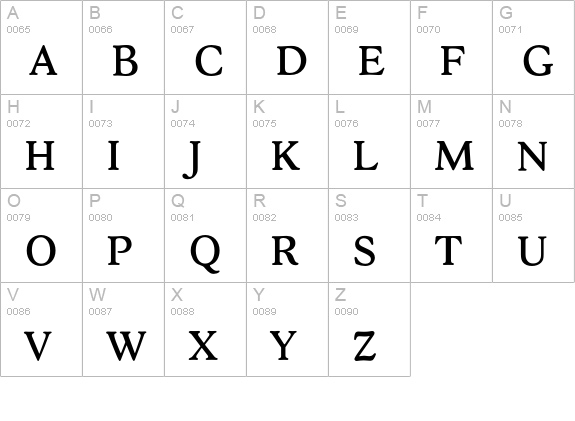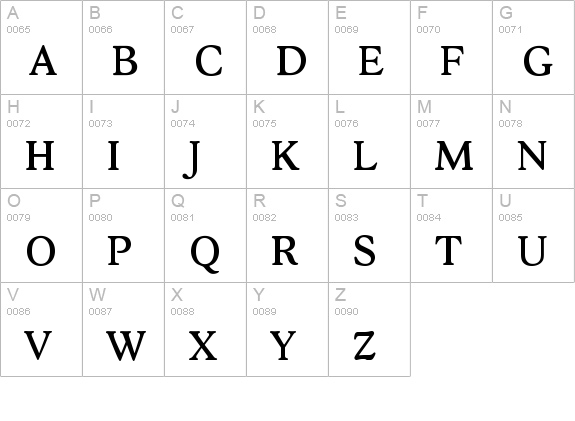
Stratford-Regular is the standard, neutral variant in the Stratford typeface family \xE2\x80\x94 well suited to general body text, paragraphs, and standard typographic work.
Stratford-Regular font is a timeless and elegant typeface that exudes sophistication and charm. With its clean lines and classic design, this versatile font is perfect for a wide range of projects, from branding and advertising to invitations and signage. The balanced letterforms and subtle serifs of Stratford-Regular add a touch of refinement to any text, making it a popular choice among designers and creatives. What sets Stratford-Regular apart is that it is available for free download at FontsMarket.com. This means you can easily access and use this high-quality font in your projects without any cost. Whether you're working on a personal or commercial project, Stratford-Regular offers a professional and polished look that will elevate your designs. Don't miss out on this opportunity to enhance your typography with the timeless beauty of Stratford-Regular font.